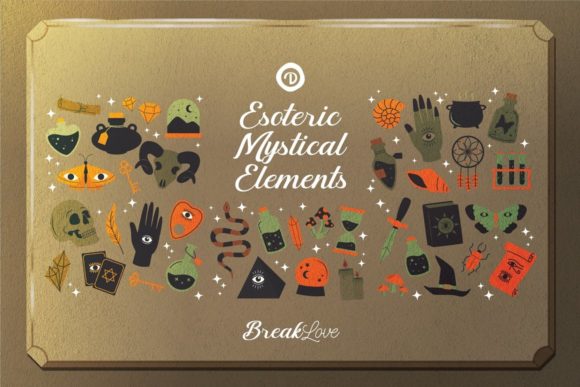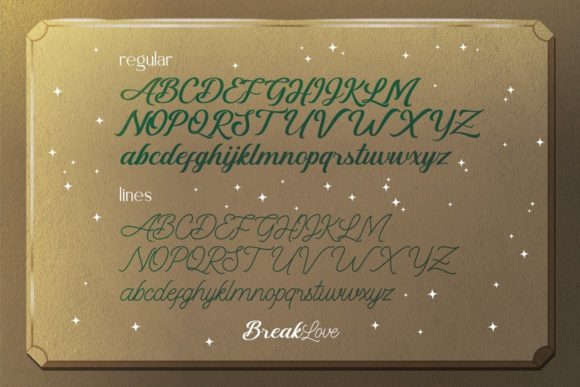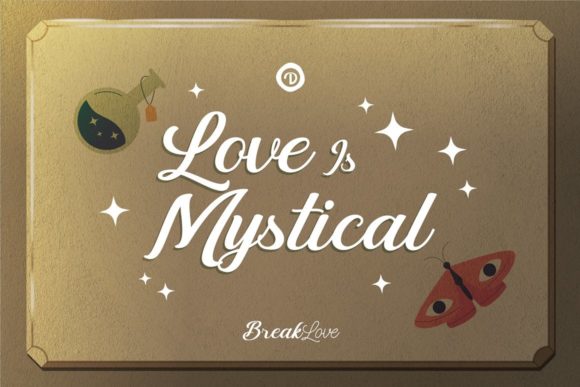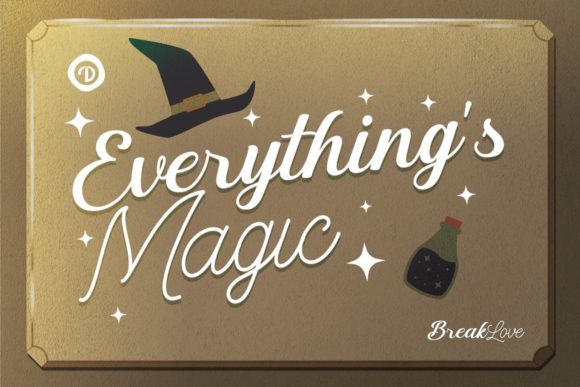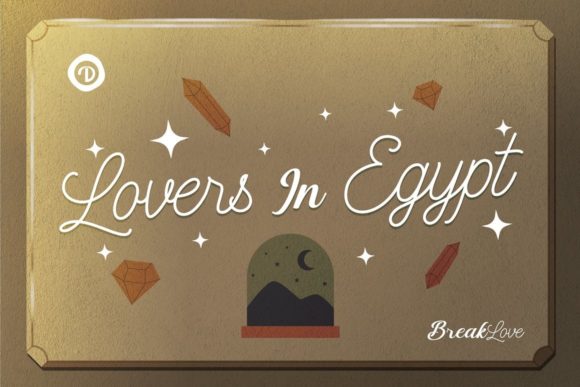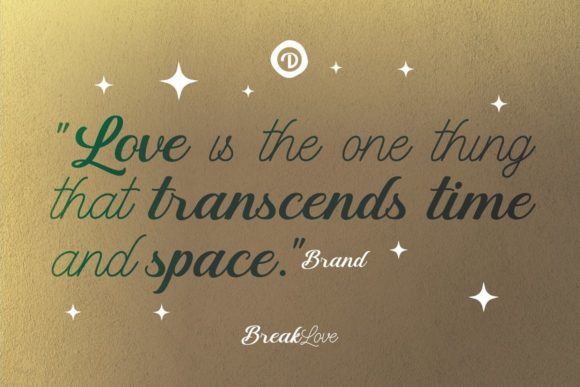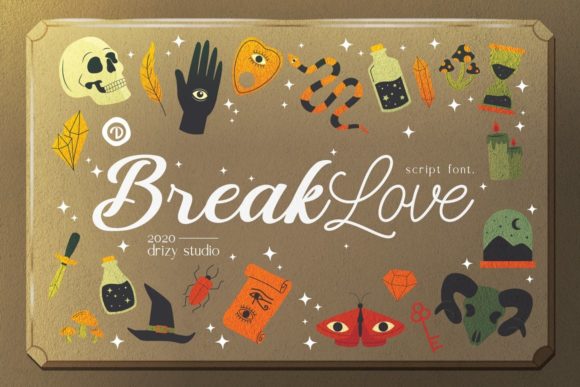
Introducing BreakLove Font: Elevate Your Designs with a Stylish and Bold Handwritten Touch
Are you tired of using the same old fonts for your design projects? Do you want to add a touch of personality and style to your headlines and logotypes? Look no further than BreakLove Font, a gorgeous and bold handwritten font that’s sure to take your designs to the next level.
A Strong, Confident, and Dynamic Font
BreakLove Font is crafted to give your designs a strong, confident, and dynamic feel. Its bold and expressive letterforms are perfect for making a statement, whether you’re designing a logo, headline, or social media graphic. With BreakLove, you can add a touch of nostalgia to your designs while still keeping them modern and fresh.
One of the best things about BreakLove Font is that it’s PUA (Private Use Area) encoded. This means that you can access all glyphs and swashes with ease, giving you even more creative freedom to customize your designs. With PUA encoding, you can easily insert alternate characters, ligatures, and swashes to add more flair to your typography.
BreakLove Font is perfect for designers and crafters who want to add a personal touch to their work. Whether you’re creating logos, branding materials, or social media graphics, BreakLove is a versatile font that can be used for a wide range of projects. Its bold and expressive letterforms make it ideal for headlines, titles, and logotypes, while its nostalgic feel makes it perfect for crafters who want to add a vintage touch to their designs.
Key Features of BreakLove Font
- Bold and expressive letterforms: BreakLove Font features bold and expressive letterforms that are perfect for making a statement.
- PUA encoded: BreakLove Font is PUA encoded, making it easy to access all glyphs and swashes.
- Nostalgic feel: BreakLove Font has a nostalgic feel that’s perfect for crafters who want to add a vintage touch to their designs.
- Versatile: BreakLove Font can be used for a wide range of projects, from logos and branding materials to social media graphics and headlines.
If you’re looking for a stylish and bold handwritten font to elevate your designs, look no further than BreakLove Font. With its strong, confident, and dynamic letterforms, nostalgic feel, and PUA encoding, BreakLove is the perfect font for designers and crafters who want to add a personal touch to their work. Download BreakLove Font today and take your designs to the next level!